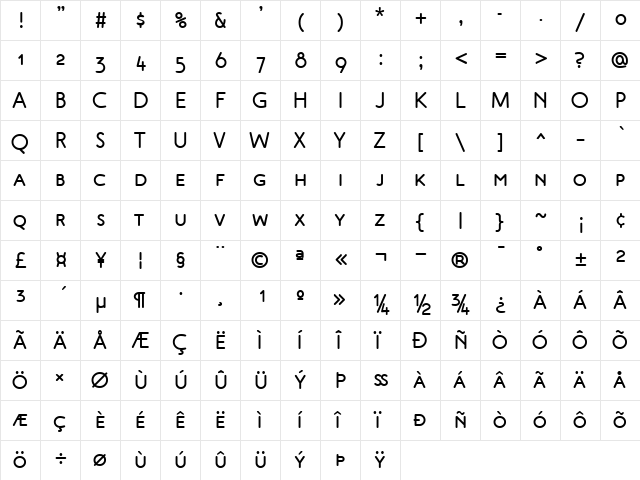
Malvern SC Bold
Design Context for Malvern SC Typeface
Malvern SC offers clean, dependable letterforms without strong stylistic allegiance, making it a practical choice for designers who need flexibility. The heavy weight commands attention and anchors typographic hierarchies.
Pro Tip: Pair Malvern SC with a font of contrasting weight or personality to build a more expressive typographic hierarchy.